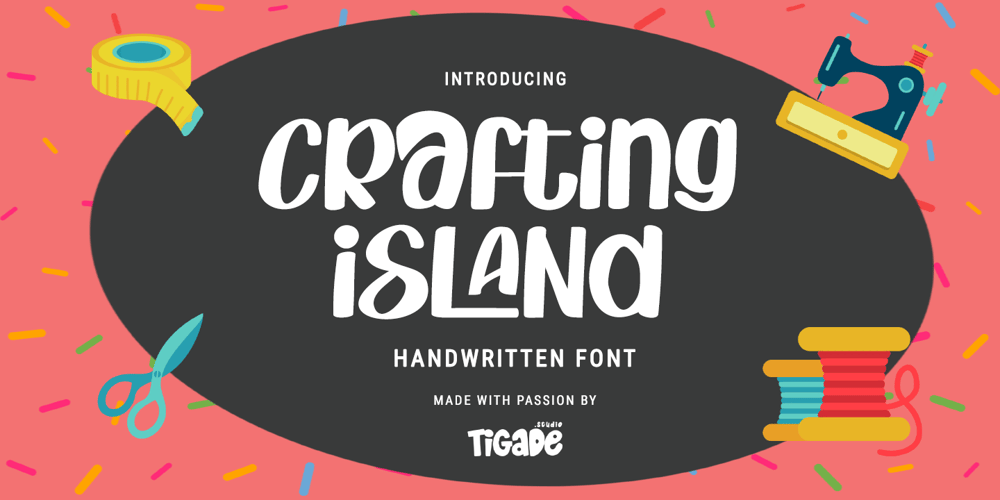
Crafting Island
Crafting Island font
Crafting Island Font Family was designed by Doli Harahap and published by Tigade Std. Crafting Island contains 3 styles and family package options. Crafting Island. You are right!! This font that is intended for the crafting world (not only island). This is a cute, happy, sweet font that is suitable for any theme or seasonal use. It can enhance your crafting products for a better look.It comes with some alternate glyph that are accessible via All Alternate (easy access by using Adobe Illustrator or Photoshop). It is suitable for Logo, Cards, Branding, Social Media, YouTube Thumbnail, Advertisement, Posters, any many others.Features:- Standard Characters (Uppercase and Lowercase)- Numerals- Punctuation- International Characters- Ligatures- Alternate Characters Extras:- Crafting Island Paintbrush Style- Crafting Island Flower StyleDisclaimer:Clips arts shown in the posters/images are not included. It is for promotional purpose.Enjoy designing and stay safe!Tigadestd